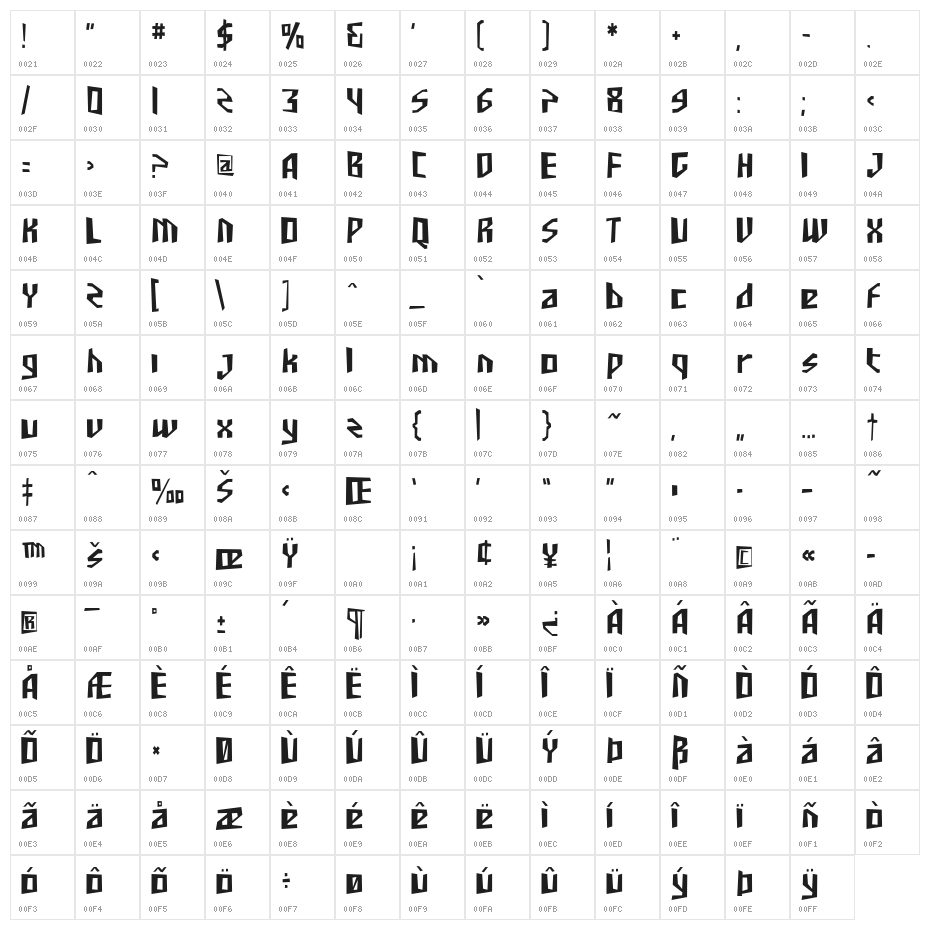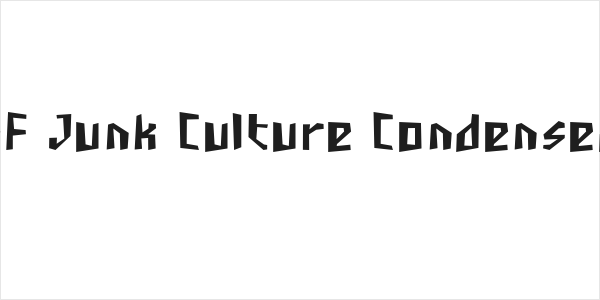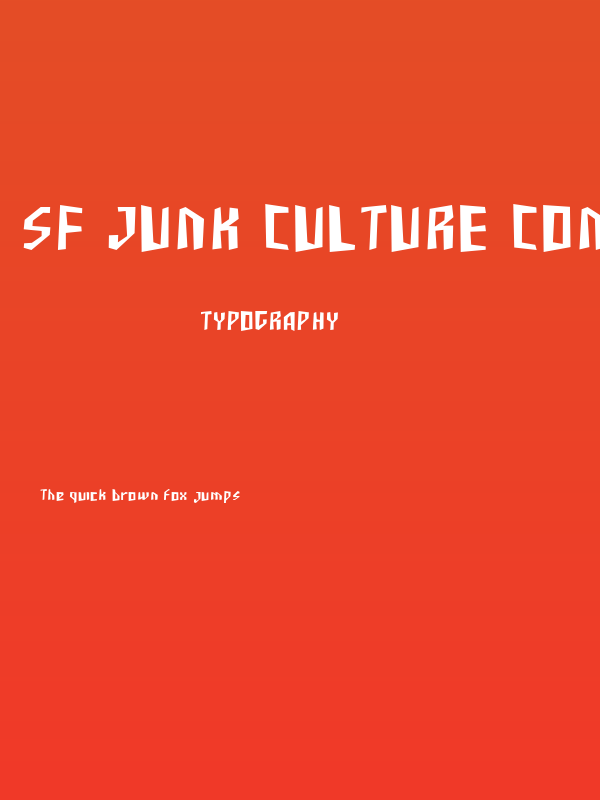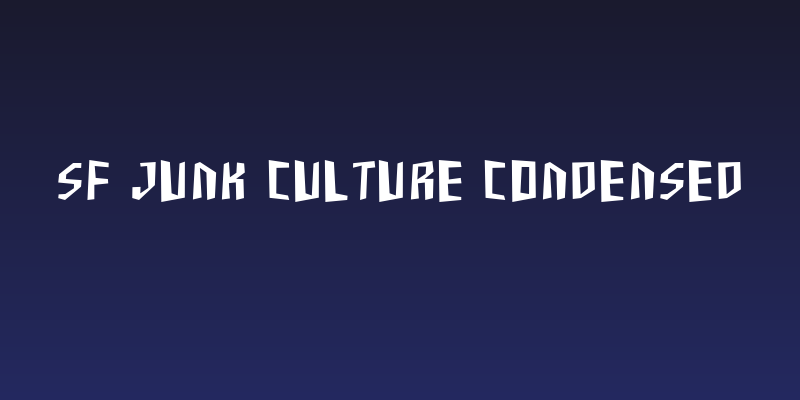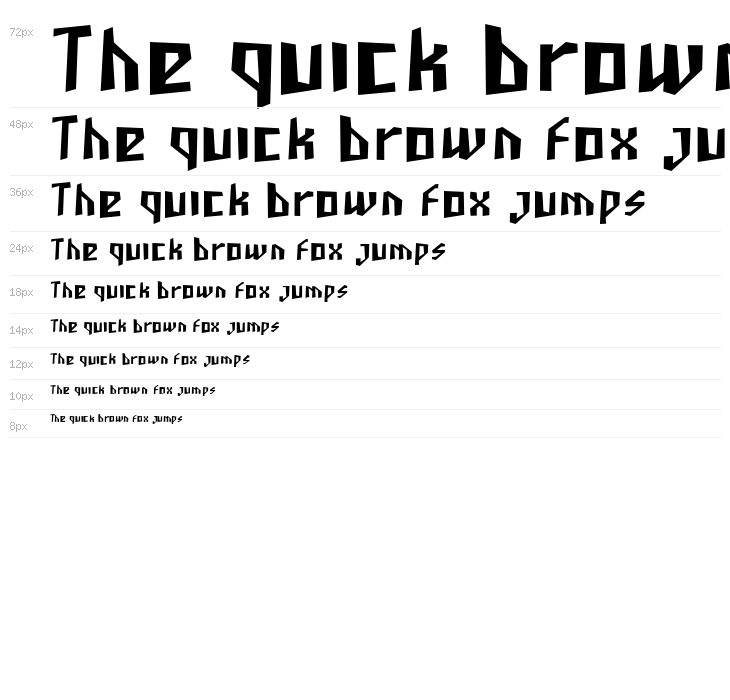
SF Junk Culture Condensed Font
SF Junk Culture Condensed Description
This font exhibits a bold and dynamic style with sharp, angular edges and a condensed form. The characters are designed with a distinct geometric flair, giving them a modern and edgy appearance. The uppercase letters are particularly striking, with a strong presence that commands attention. Lowercase letters maintain the same angular aesthetic, ensuring consistency throughout the typeface. Numbers and special characters are crafted with the same attention to detail, making them easily legible while retaining the font's unique style. The overall design is both futuristic and slightly retro, reminiscent of digital or sci-fi themes.
| Proposed Projects | Ideal for projects requiring a futuristic or digital aesthetic, such as tech branding, video game titles, or sci-fi movie posters. |